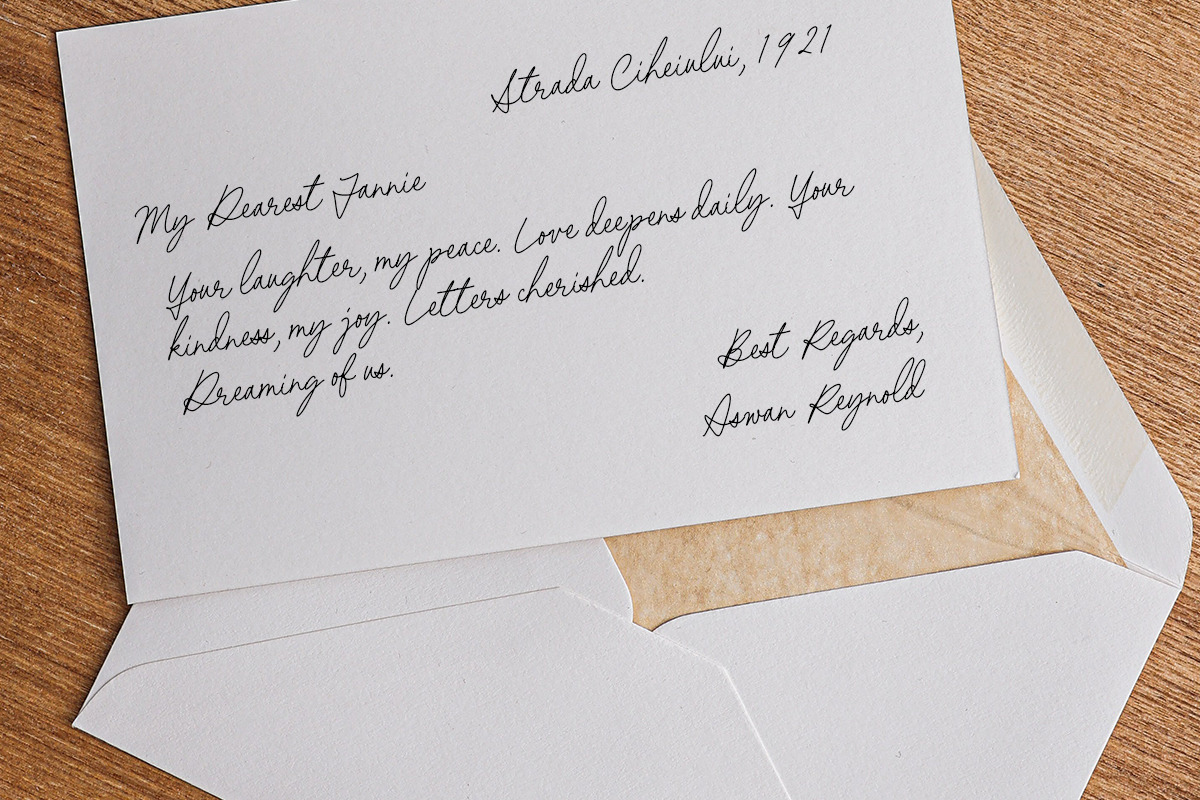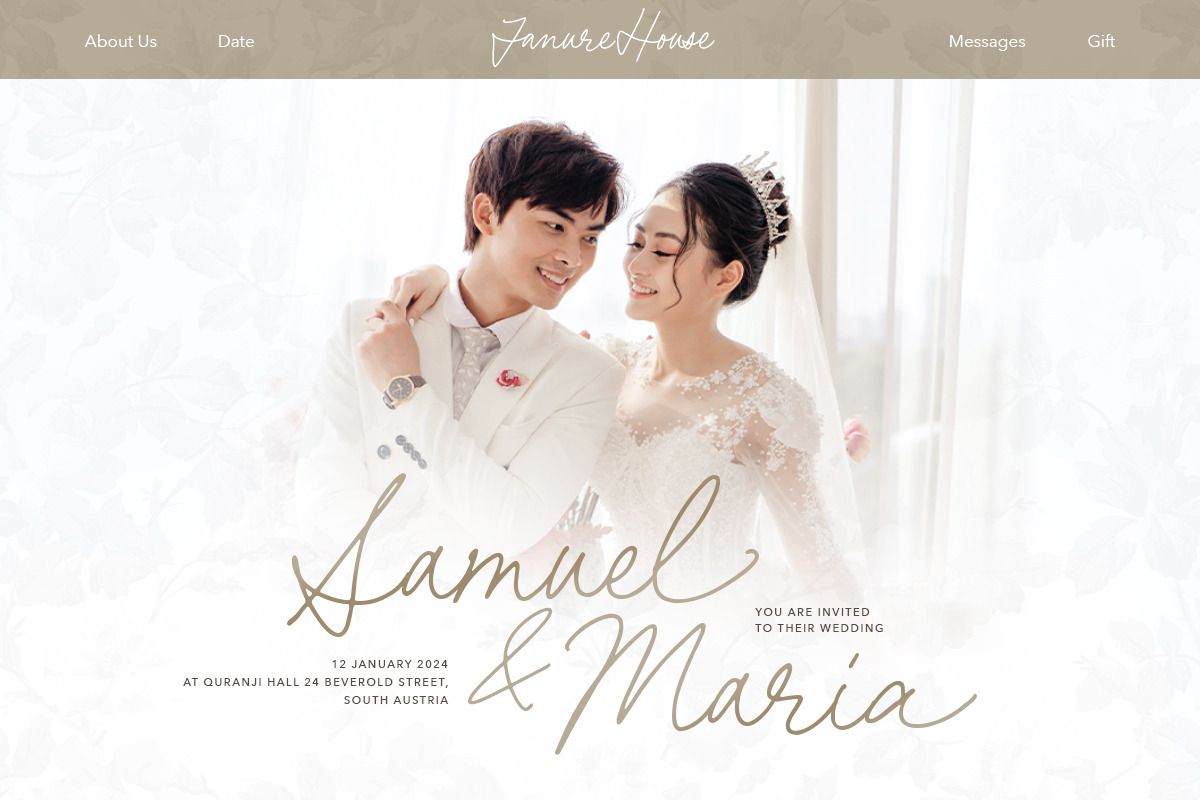
Random Details - Simple Script
Random Details is a simple and classic signature script. This minimalist script font combines simplicity, elegance, and a personal touch to create a timeless and sophisticated typographic solution. It is an excellent choice for projects that require a refined and understated aesthetic with a hint of individuality such as wedding invitation, logo, branding, and quotes. This font also support multi language and ligatures.